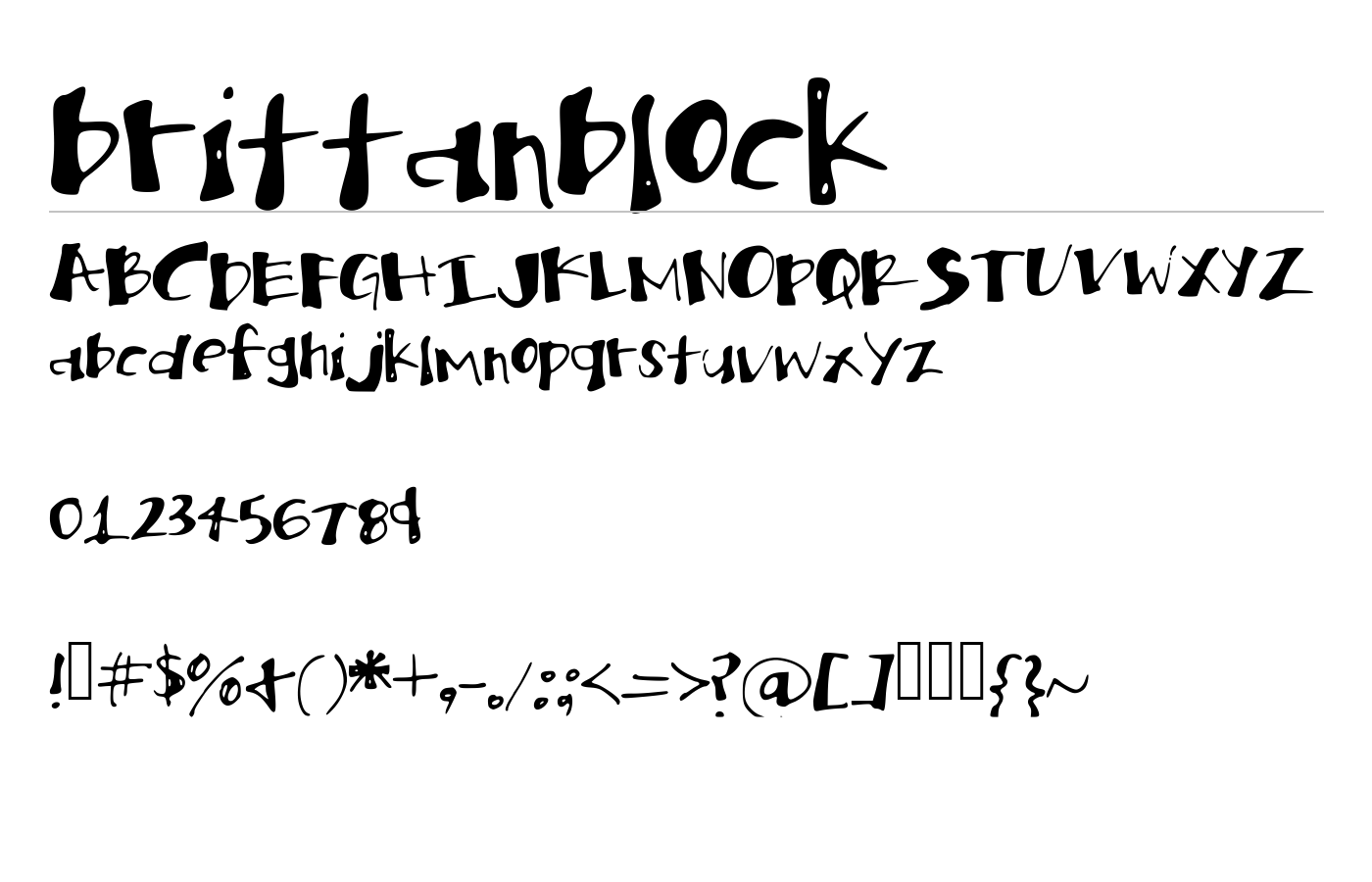
Brittanblock is a quirky, hand-drawn sans serif font featuring playful irregular shapes and varied stroke widths that give it a lively, artistic feel. Its unique, casual style is perfect for creative projects, informal branding, or designs that want to convey a fun, approachable personality. This font works best in headlines, logos, or any display use where a distinctive, handcrafted touch is desired.
brittanblock Font